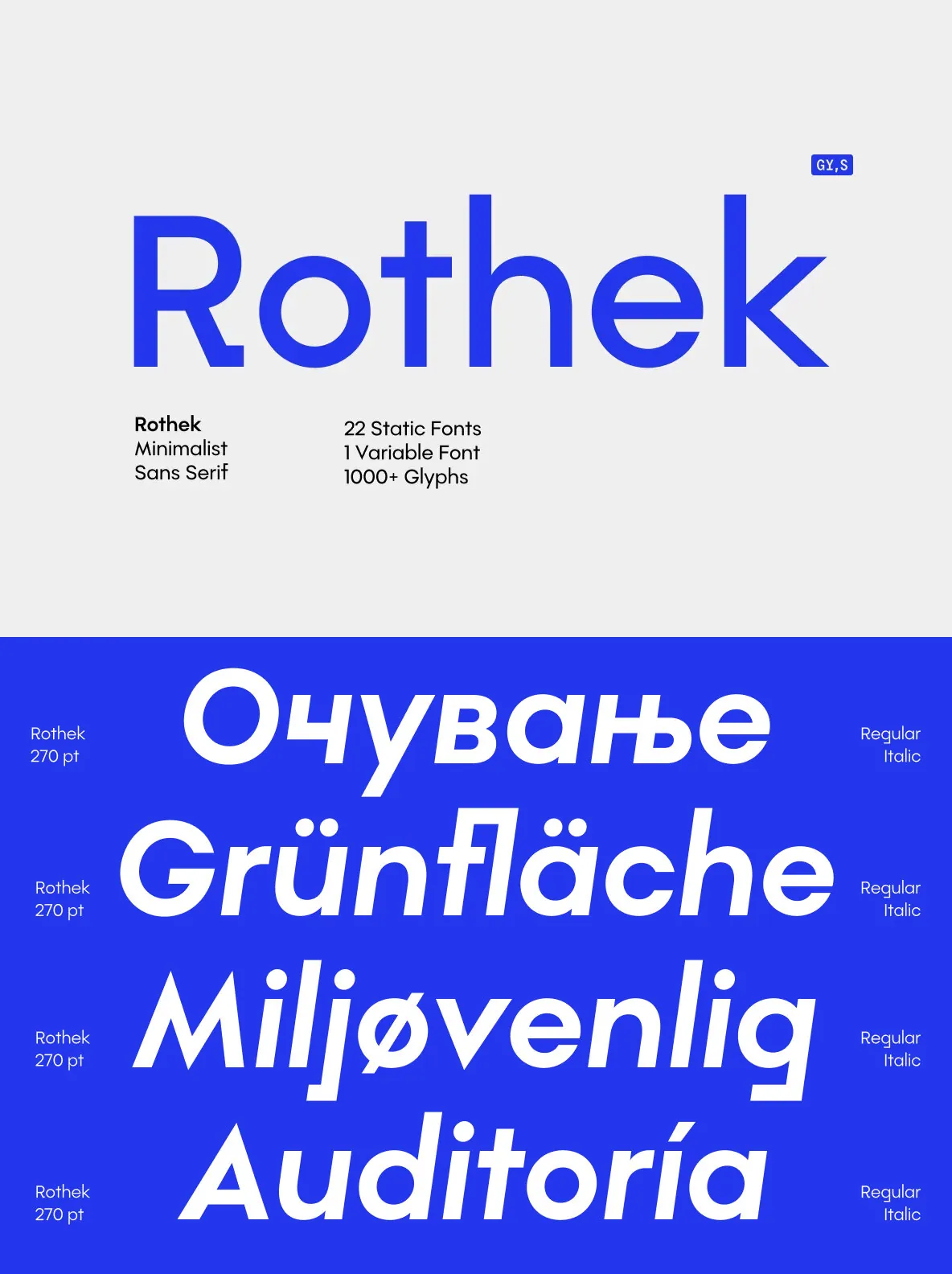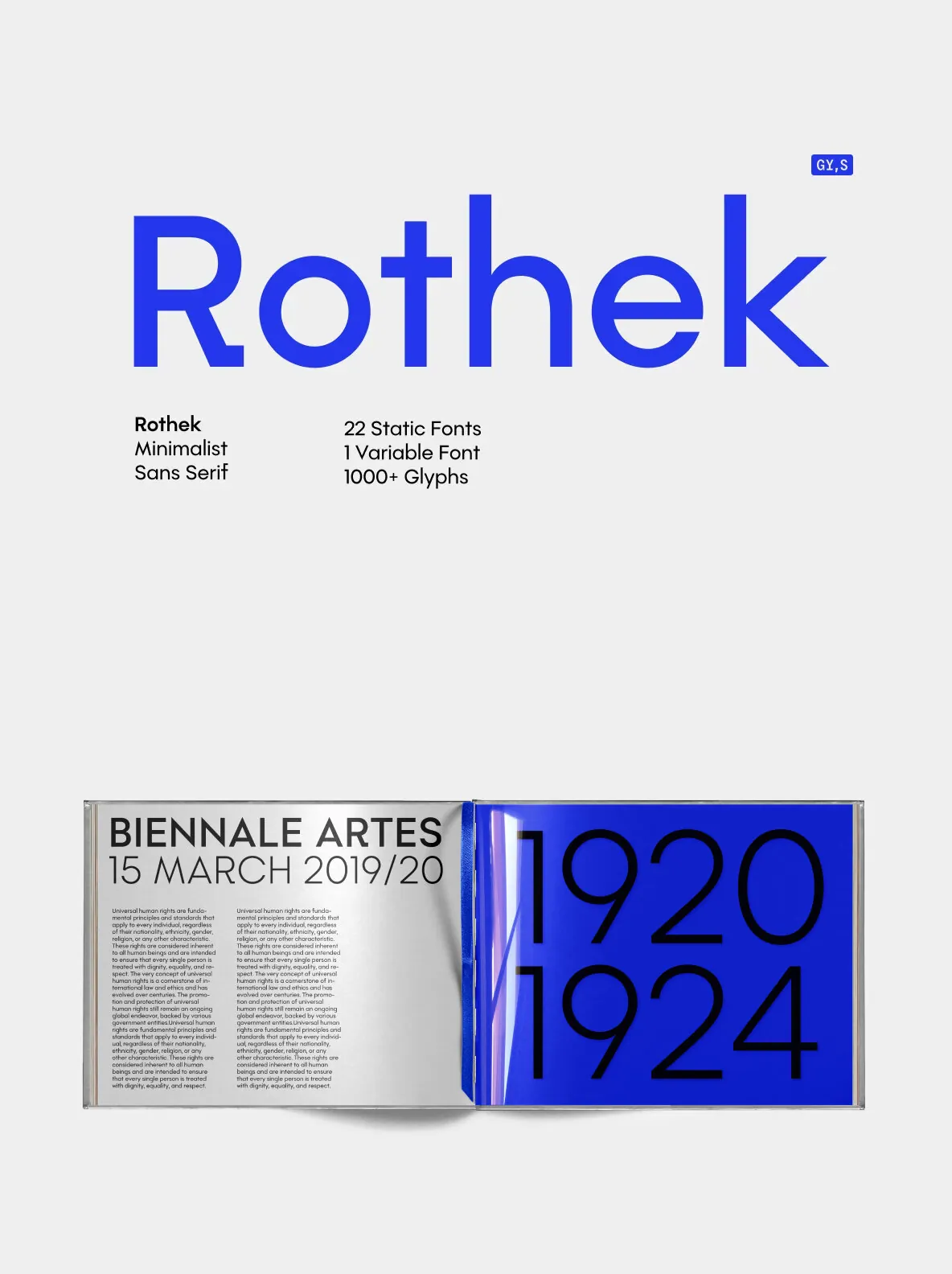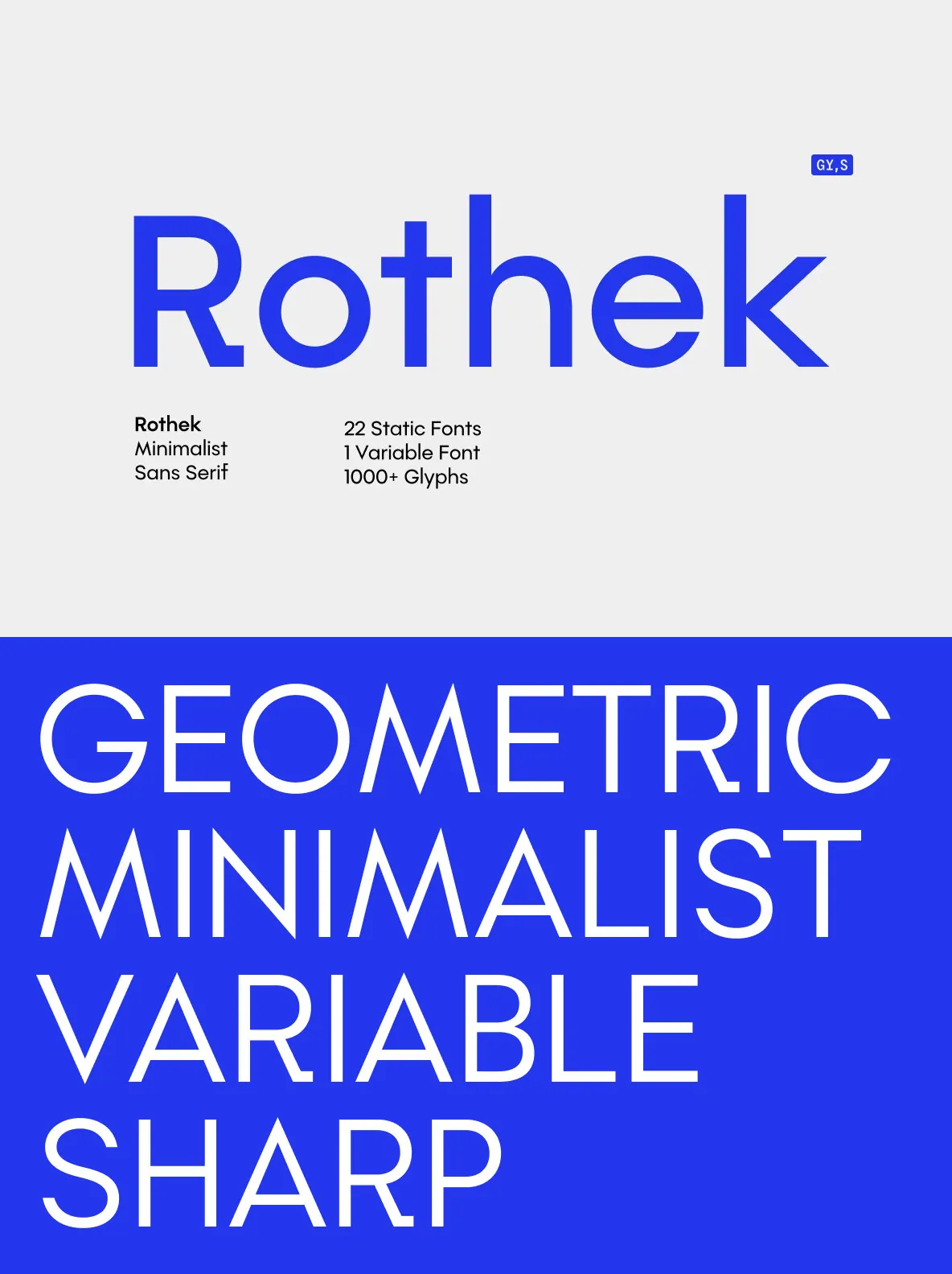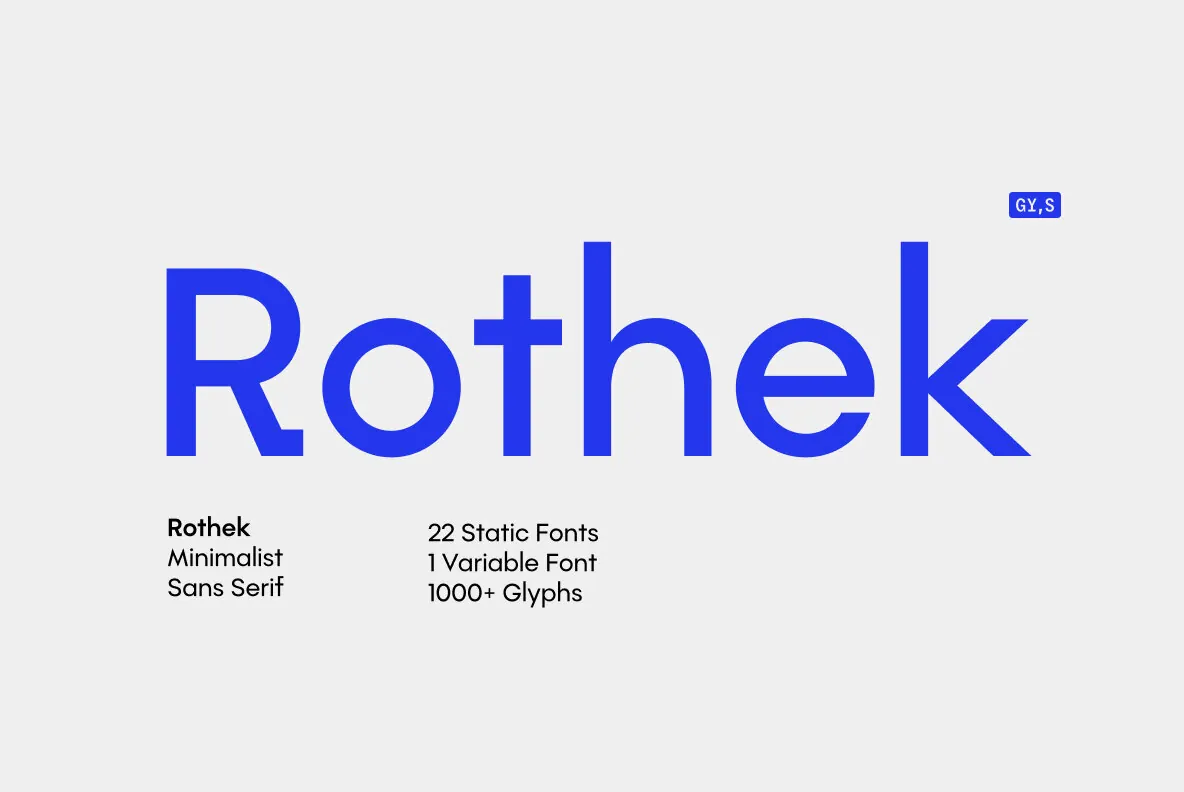
Rothek Font
Rothek — Geometry with a Wink
Rothek is defined by its strong and unique character. It balances strict geometric forms with subtle curves, giving the family a clear voice without losing its whimsicality. Despite its personality, Rothek stays highly legible in smaller weights, making it a dependable choice for app design, web design, and other interface work.
The family includes 21 styles—10 uprights, 10 italics, and 1 variable font—ranging from Thin to Black. With 1000+ glyphs per font and broad language support, Rothek works across editorial design, branding, and digital systems where consistency matters. It supports 200+ Latin-based languages (including all European languages) as well as major Cyrillic languages.
Features
1 Variable Font
20 Static Fonts (10 Upright + 10 Italic)
1000+ glyphs per font
Extended Latin + Cyrillic
Multiple Stylistic Sets
Case-Sensitive Punctuation
Various OpenType Features
Standard Ligatures
Stylistic Alternates
OpenType Features
Localised Forms (locl)
Subscript (subs)
Inferiors (sinf)
Superscript (sups)
Numerators (numr)
Denominators (dnom)
Fractions (frac)
Ordinals (ordn)
Tabular Figures (tnum)
Oldstyle Figures (onum)
Case-Sensitive Forms (case)
Ligatures (liga)
Stylistic Sets (ss01-ss12)